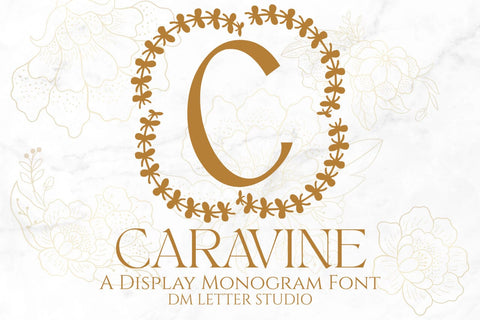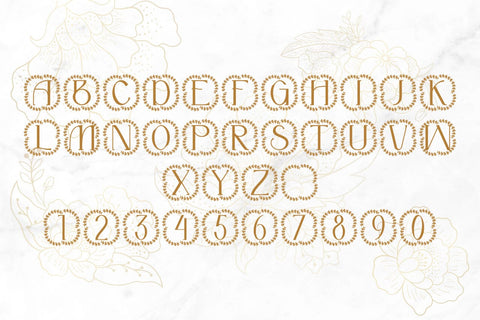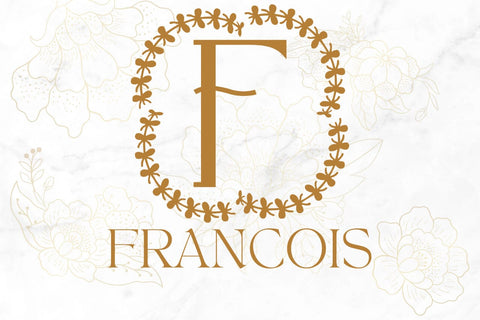
Caravine Monogram Font
Meet Caravine, the Monogram Font
Caravine Monogram Font turns simple initials into elegant marks that read fast. Lines feel smooth. Curves stay balanced. Because counters are open, tiny tags still look crisp. Use it for wedding suites, boutique logos, keepsake gifts, and premium packaging. Moreover, this Monogram Font pairs beautifully with soft serifs and modern sans. Therefore, your layouts feel refined without extra effort.
Where the Monogram Font shines
Set single, double, or triple initials for logos and seals. Then add fine borders, laurel rings, or oval frames to echo the form. Since proportions favor symmetry, polished compositions come together in minutes. As a result, your thumbnails stand out and listings stay consistent. Plus, Caravine scales from jewelry cards to venue signage with ease.
Fast setup, polished results
Design tips for Caravine Monogram Font
Keep initials large and let negative space breathe. Pair the headline with a quiet serif or a humanist sans. Meanwhile, add micro shadows, thin inner strokes, or a fine frame. Because this Monogram Font is airy, metallic accents and textured papers raise perceived value. Try champagne with charcoal, blush with espresso, or midnight with pearl.
Select stylistic alternates for key letters
Curves tuned for foil, letterpress, engraving, and clean vinyl cutting
Why creators choose this Monogram Font
You want elegance that reads at a glance and sells quickly. Caravine delivers. It grabs attention in thumbnails, speeds production, and keeps brand voice cohesive from invites to signage. However, keep copy brief and let the monogram lead. Consequently, every piece feels intentional, premium, and memorable.